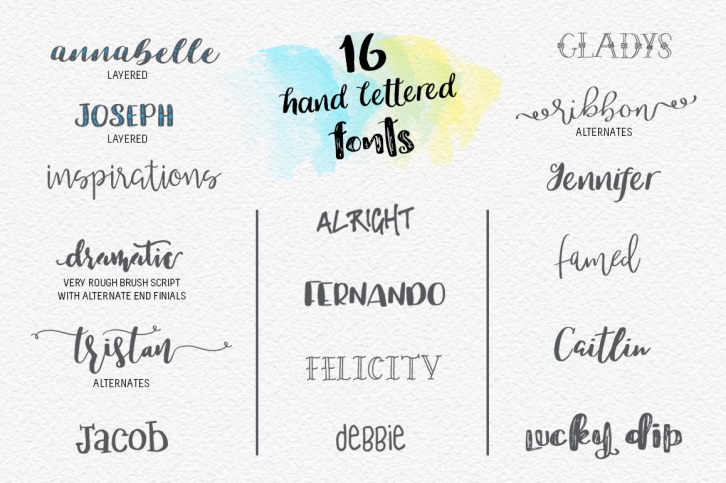
Take your pick in the Lucky Dip font bundle and create something amazing! OR go ahead and use one of the pre-designed templates I've included as freebies - I'll tell you more about these below.
Lucky Dip includes a varied selection of typefaces from script to patterned layered fonts and quirky caps so you'll be able to create endless typographic designs for apparel, logo designs, greeting cards or just for fun!
Here's a little more info on each font:
• Annabelle - is a bold script typeface with an additional jazzy little pattern font that you can place on top in any colour you like. Or you can use Annabelle without the pattern fill to create an elegant, bold piece of typography.
• Joseph - is a layered, all caps typeface. Just like Annabelle, you can use it with or without the pattern font.
• Inspirations - This is a right little cutey. It's a very neat and modern handwriting font which will be perfect for logos, addresses on envelopes and larger amounts of text.
• Dramatic - is exactly that! This hand brushed, authentic script has rough edges and tonnes of elegance! There are alternate glyphs for each end of the lowercase letters so your words will look complete and hand lettered.
• Tristan - this one's my favourite! The floating baseline and varied letter sizes really catches the eye giving your work a beautiful, modern calligraphy style. There are alternates and the uppercase letters are perfect to use as all caps (I've used them on the birth announcement card template which is included).
• Jacob - is a fun, bouncy font and works great in a pairing or even as the main font in a design (see the last picture of the cute little girl).
• Alright - was made with a gel pen and is all caps. This works extremely well with script fonts, especially Famed. You can see them at work on the t-shirts preview picture.
• Fernando - this is another of my favourites because it works so well on it's own or paired with a script font. It's just a totally genuine looking, hand lettering font. Fernando is a very happy, all caps font that you can use anywhere and with anything!
• Felicity - is an open, all caps font which can be applied as a complimentary typeface with other fonts. It's great for small words here and there to give your designs a little extra style.
• Debbie - is a childlike typeface which works well with Jacob. The uppercase letters are the same size as the lowercase letters so you can swap them to see which combination works best for you.
• Gladys - is open with that little extra swirl effect to give your words some handmade elegance. Like Felicity, Gladys works well in smaller words but not too many, making it perfect as a companion to an elegant script font. You can see Gladys in the birth announcement card design and the logo designs I've included in the download.
• Ribbon - is a calligraphic typeface which includes alternates and some very elegant uppercase letters which are perfect for your initials. In fact, so are the lowercase if you use the alternate glyphs with the ribbon swashes. This font is also perfect for greeting cards and is used in the logo templates and the Happy Birthday card.
• Jennifer - is another beautifully elegant hand lettered font. It has cute little swirls on the uppercase letters and will look great in your designs.
• Famed - is a tall, thin handwriting font with tall ascenders and descenders. This is perfect for signatures and works very well with Alright font (see the t-shirts).
• Caitlin - is another modern script font which is perfect for your hand lettering styled projects. I've used this on one of the tote bag designs in the preview picture - it works so well on it's own and will work well with most of the other fonts in this bundle.
• Lucky Dip - I love this one! A small but chunky hand brushed typeface with small caps to fit with the lowercase letters. This, I've found, goes with everything in this bundle. You can make it any colour and it will still be as bold as brass!